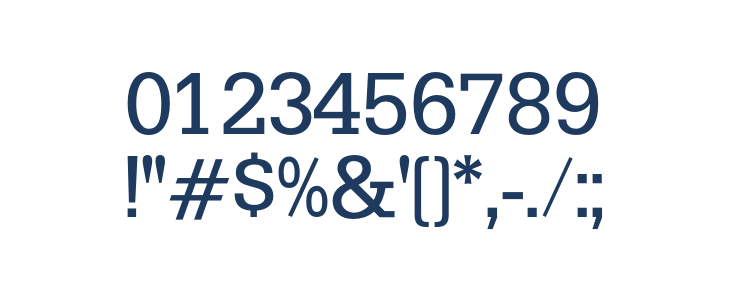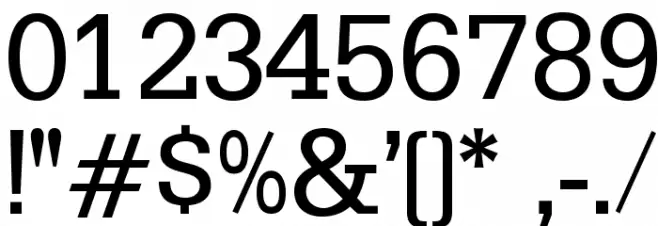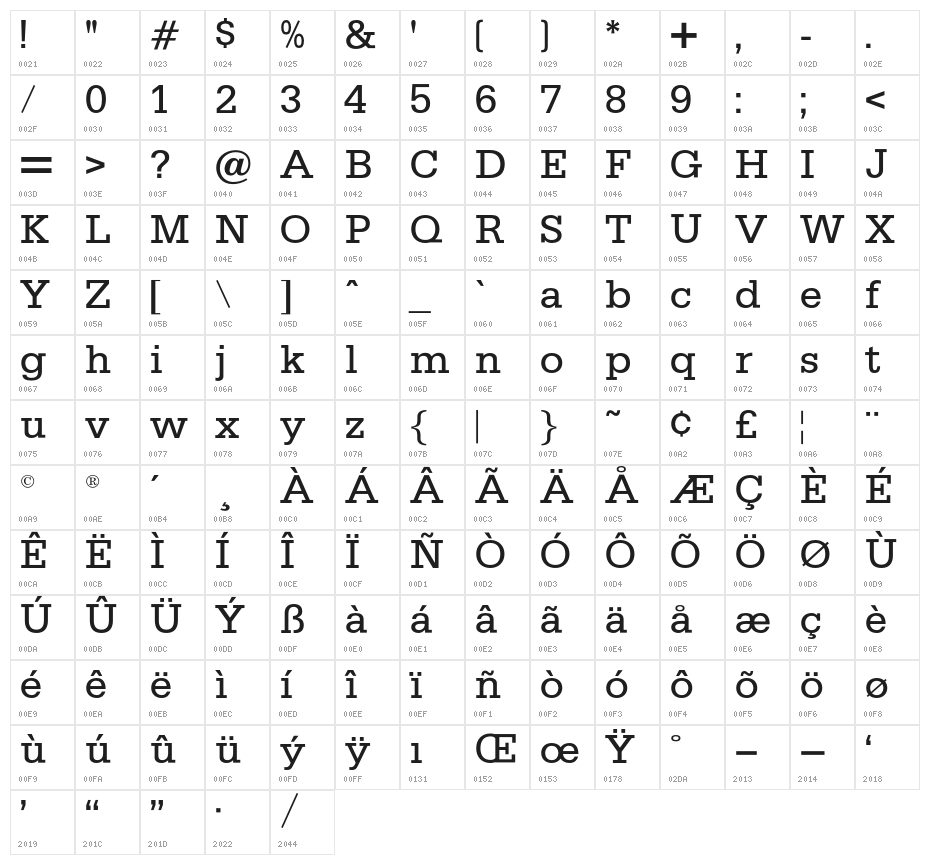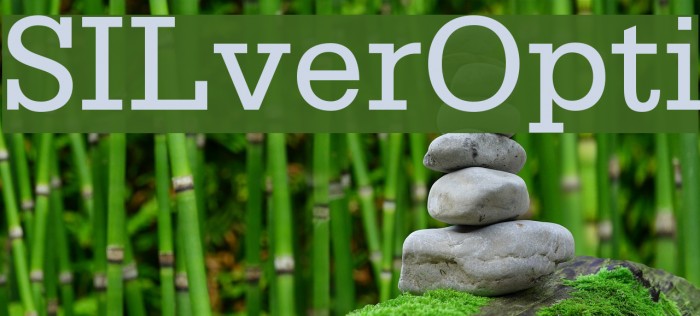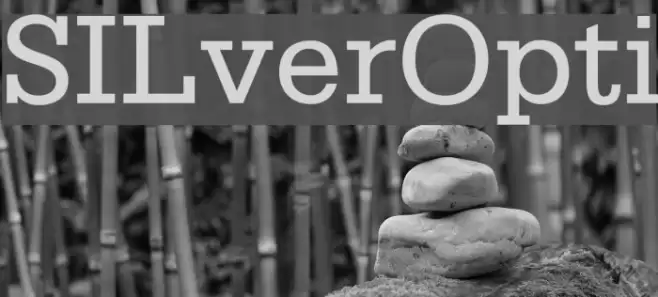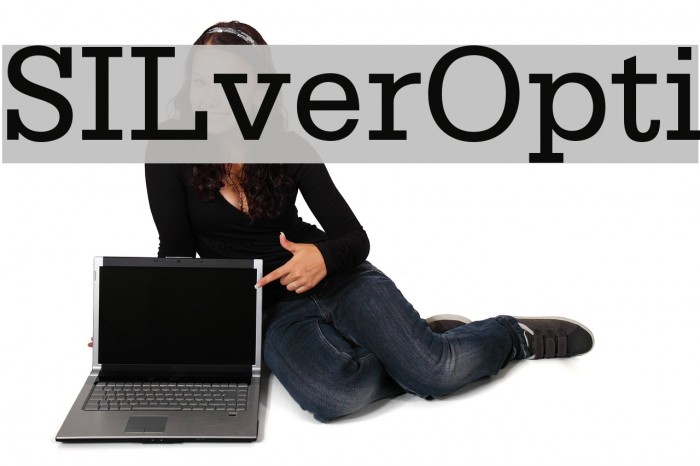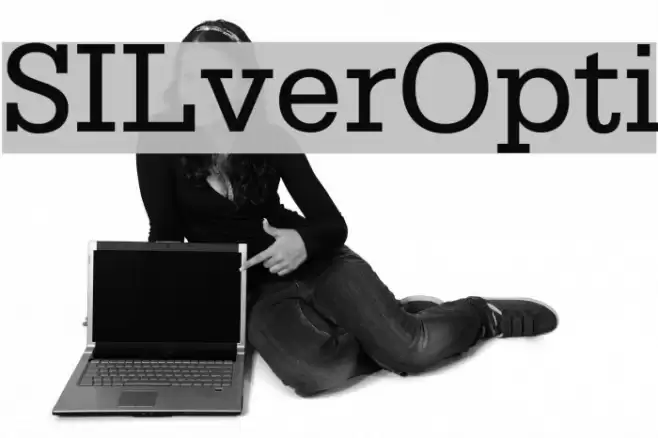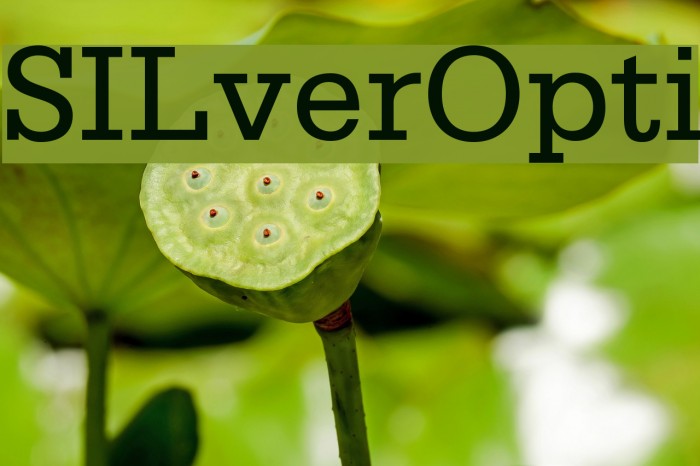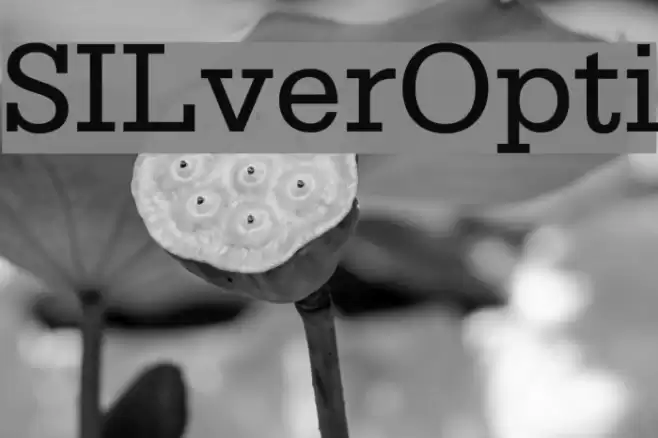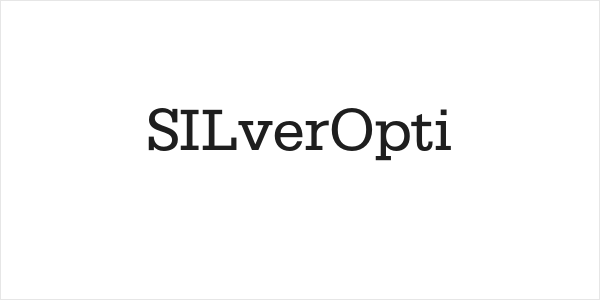
SILverOpti Font
SILverOpti Description
This font exhibits a classic slab serif style, characterized by thick, block-like serifs that provide a strong and sturdy appearance. The uppercase letters are bold and commanding, while the lowercase letters maintain a consistent weight, ensuring readability and balance. The numerals are clear and distinct, making them suitable for various applications. The special characters are well-defined, complementing the overall robust design. This font's structure is ideal for creating a sense of authority and reliability, making it a versatile choice for both digital and print media.